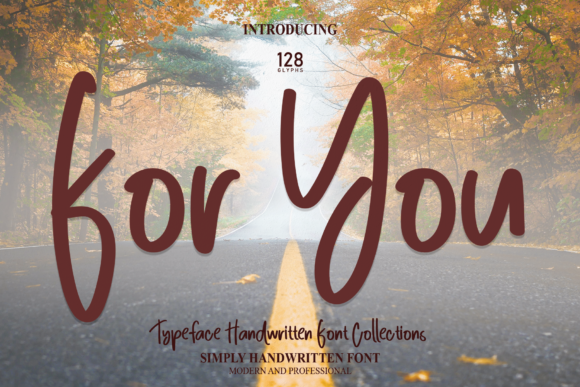
Get ready to fall head over heels for For You, the script font that will transform your designs into masterpieces. Each letter flows with effortless grace, adding a touch of sophisticated charm to your projects. Handcrafted with the utmost precision, For You embodies the essence of elegance and style.
Step into the realm of creativity and let For You elevate your letterheads, greeting cards, and social media posts to new heights. Its delicate strokes and enchanting curves will captivate your audience, leaving an unforgettable impression.
Don't just take our word for it - let For You do the talking. Download this enchanting font today and experience the power to transform your designs into works of art. Every letter will sing with elegance, adding a touch of timeless beauty to your creations.
Indulge in the world of For You, where your imagination will soar, and your designs will shine with brilliance. Let this remarkable font ignite your creativity and inspire you to create masterpieces that will turn heads and leave your audience breathless.